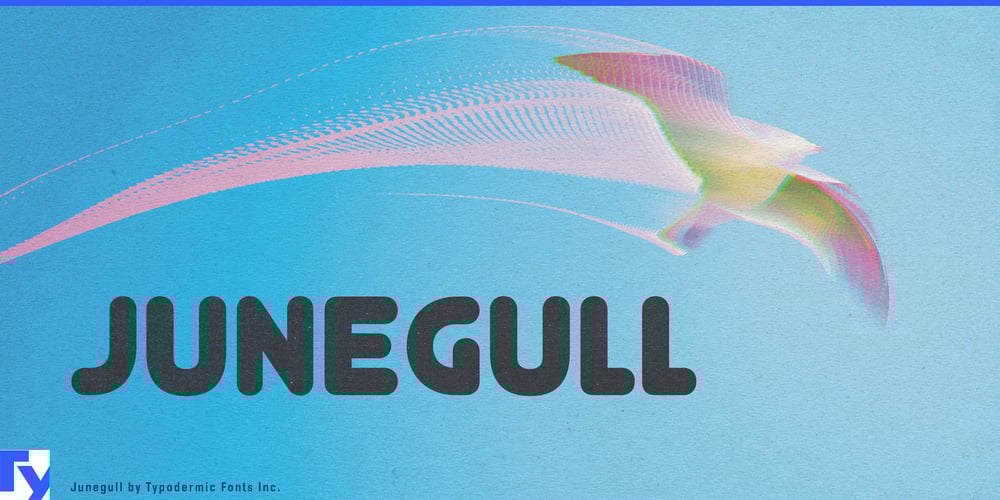
Junegull Font Family was designed by Ray Larabie and published by Typodermic. Junegull contains 2 styles and family package options. Junegull emerges as a captivating typeface that deftly navigates the intersection of retro-tech aesthetics and contemporary design sensibilities. This all-caps rounded sans serif font family presents a unique visual paradox—at once inviting and assertive, technologically inspired yet warmly approachable.At its core, Junegull embodies the spirit of friendly futurism. Its rounded forms evoke a sense of approachability, while its bold, uniform strokes speak to a technological precision. This duality allows Junegull to excel in a variety of design contexts, from cutting-edge tech branding to playful children’s media. It’s a typeface that doesn’t just communicate—it engages, inviting viewers to explore the message it conveys. The Junegull family expands its expressive range with the introduction of Junegull Beach, a variant that pushes the boundaries of typography into new, organic territory. Where standard Junegull offers clean, geometric forms, Junegull Beach introduces a captivating textural element. Each letter pair is meticulously crafted to simulate the irregular, granular quality of sand, creating a typeface that’s as visually rich as it is conceptually intriguing. This innovative approach transforms text into a tactile experience, allowing designers to infuse their work with a sense of place and materiality.Junegull’s linguistic versatility is equally impressive. Supporting a wide array of Latin-based European writing systems, it stands ready to communicate across borders and cultures. From the fjords of Norway to the plains of Hungary, from the coastlines of Portugal to the forests of Latvia, Junegull speaks with a consistent voice, ensuring that your message retains its impact regardless of the language. Whether you’re crafting a logo for a tech startup that aims to humanize artificial intelligence, designing signage for a futuristic theme park, or creating editorial spreads that blend nostalgia with forward-thinking concepts, Junegull offers the perfect typographic voice. Its standard version provides a clean, powerful presence, while Junegull Beach adds a layer of whimsy and organic charm to any design.Embrace Junegull, and discover how its unique blend of retro-tech appeal and contemporary design can elevate your creative projects. From sleek user interfaces to playful brand identities, Junegull stands ready to bring a touch of friendly futurism to your typographic palette.